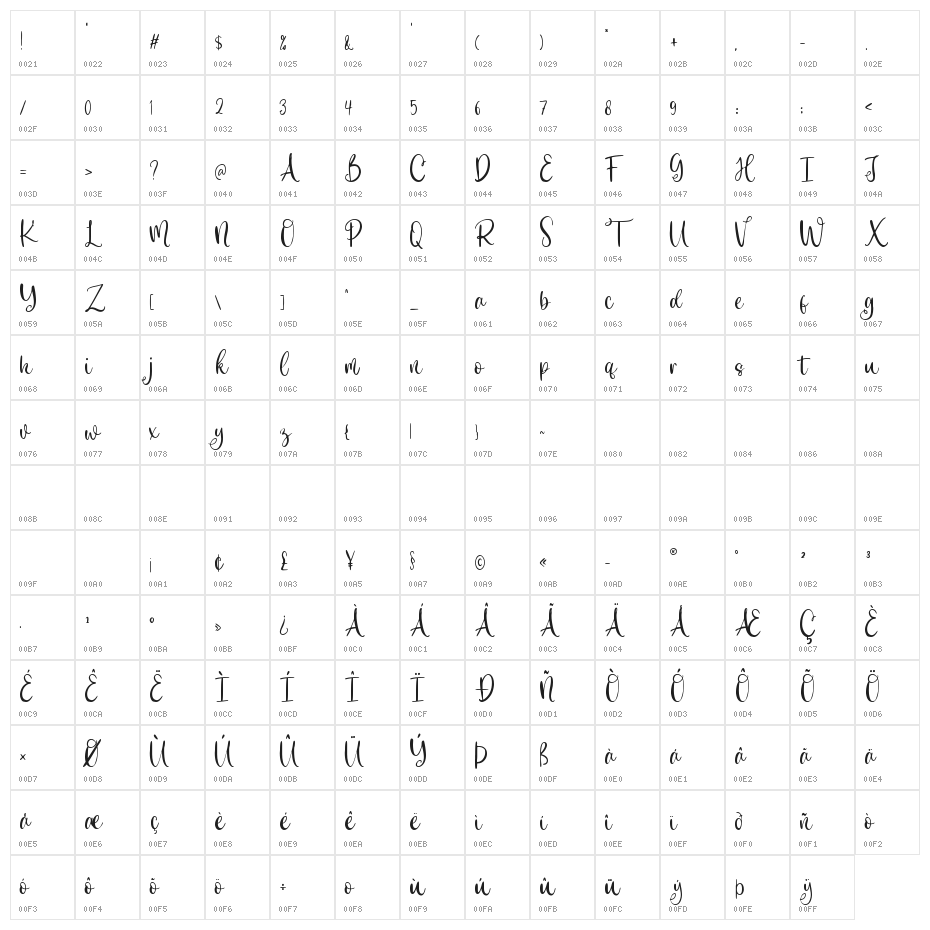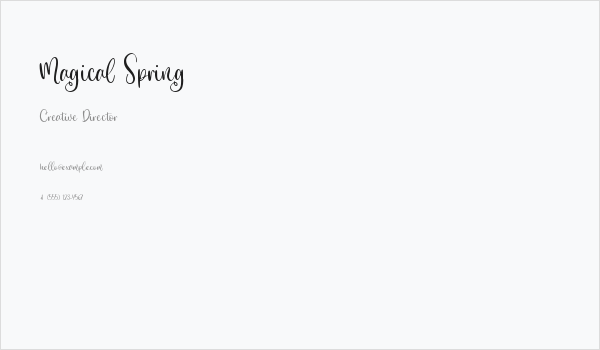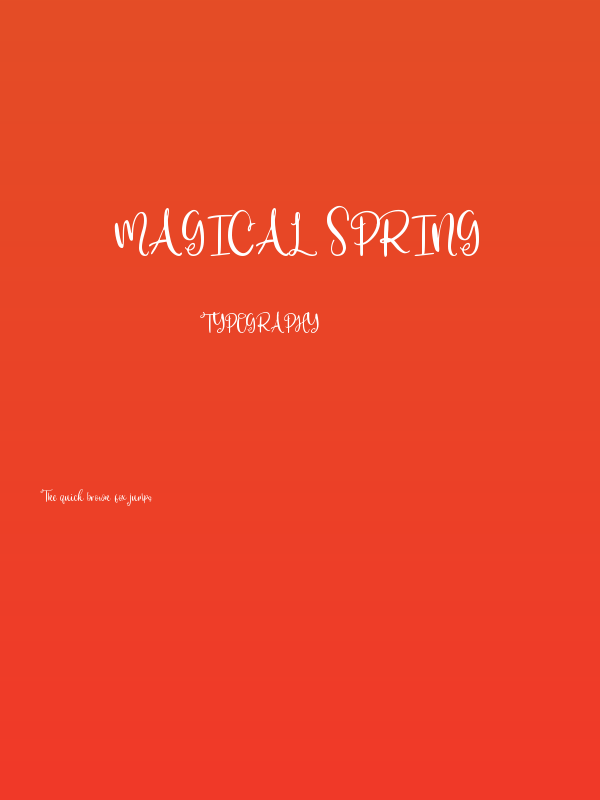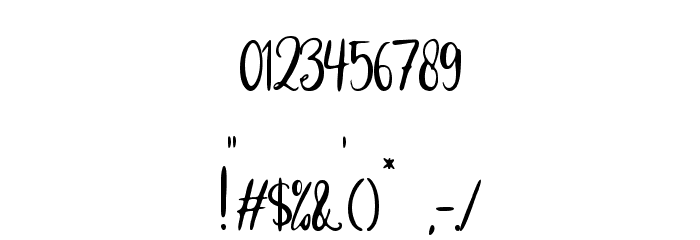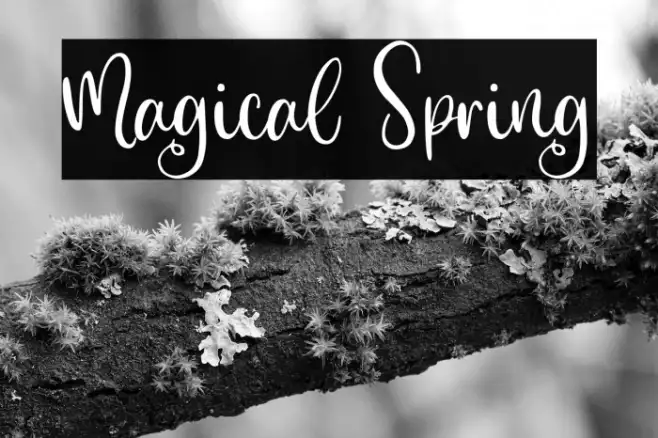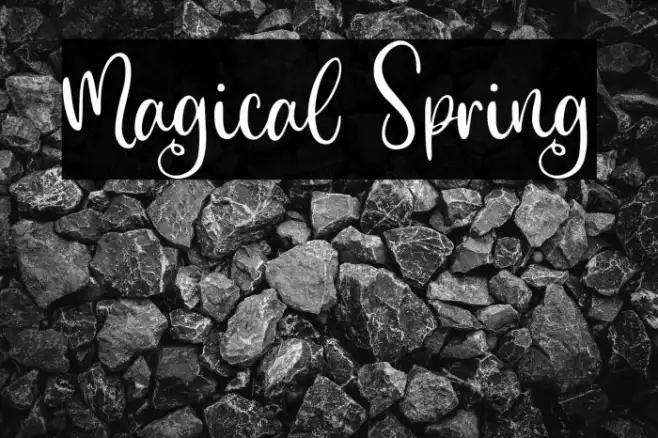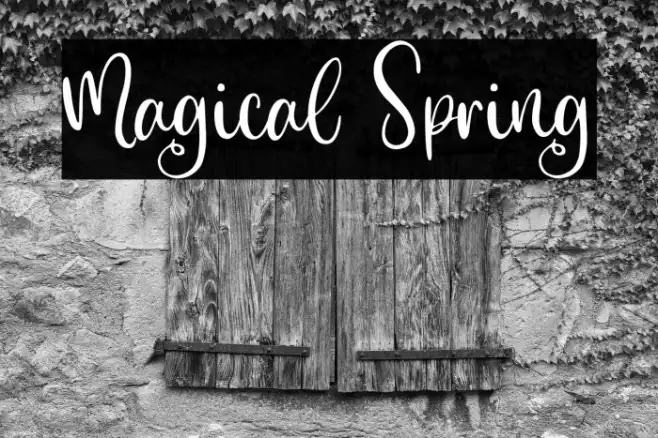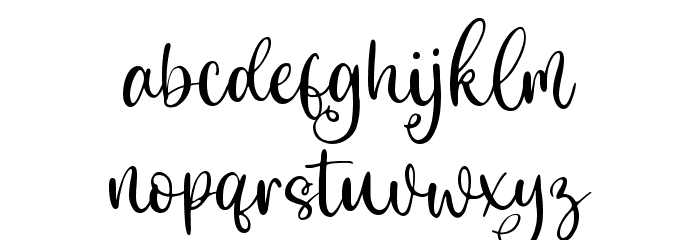
Magical Spring Font
Magical Spring Description
This font exudes a whimsical and playful charm, characterized by its flowing, cursive style with elegant loops and swirls. The uppercase letters are bold and expressive, featuring exaggerated curves that give a sense of movement and fluidity. The lowercase letters maintain a consistent style, with a slightly more compact form, yet still retaining the decorative flair. Numbers and special characters are designed to complement the overall aesthetic, ensuring a cohesive look across all elements. This font is perfect for projects that require a touch of elegance and creativity, such as invitations, greeting cards, or branding materials.